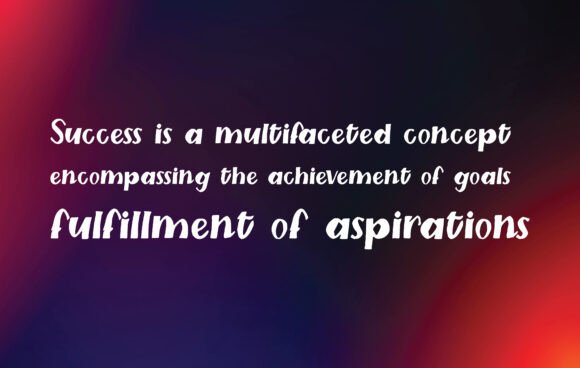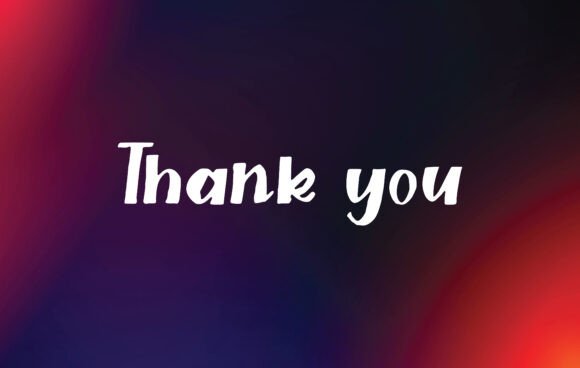
Discover the Beauty of Charlotte Font: Elevate Your Designs with this Lovely Handwritten Font
Are you a designer or crafter looking for a font that can take your creative ideas to the next level? Look no further than Charlotte Font, a lovely and beautiful handwritten font that is sure to impress. With its unique and elegant style, Charlotte Font is the perfect choice for creating eye-catching logos, branding, and quotes that will leave a lasting impression on your audience.
What Makes Charlotte Font So Special?
Charlotte Font is a carefully crafted handwritten font that exudes a sense of sophistication and charm. Its beautiful lettering and flowing curves make it perfect for a wide range of design projects, from logos and branding to quotes and social media graphics. Whether you’re looking to create a cohesive brand identity or simply want to add a touch of elegance to your designs, Charlotte Font is the ideal choice.
Key Features of Charlotte Font
- Unique and Elegant Style: Charlotte Font boasts a distinctive and refined style that sets it apart from other fonts.
- Handwritten with Love: Each letter has been carefully crafted by hand to give the font a personal and human touch.
- Highly Versatile: Charlotte Font can be used for a wide range of design projects, from logos and branding to quotes and social media graphics.
- Easy to Read: Despite its elegant style, Charlotte Font is highly legible, making it perfect for use in both digital and print designs.
Why Choose Charlotte Font for Your Designs?
There are many reasons why Charlotte Font stands out from the crowd. Here are just a few:
- Stand Out from the Crowd: With Charlotte Font, you can create designs that are truly unique and eye-catching.
- Perfect for Branding: Charlotte Font is ideal for creating a cohesive brand identity that reflects your values and personality.
- High-Quality Design: Charlotte Font is crafted with precision and attention to detail, ensuring a high-quality design that will impress your audience.
How to Use Charlotte Font in Your Designs
Using Charlotte Font in your designs is easy. Here are a few tips to get you started:
- Logos and Branding: Use Charlotte Font to create a unique and memorable logo that reflects your brand’s personality.
- Quotes and Social Media Graphics: Add a touch of elegance to your quotes and social media graphics with Charlotte Font.
- Digital and Print Designs: Use Charlotte Font in both digital and print designs, from business cards to brochures and more.